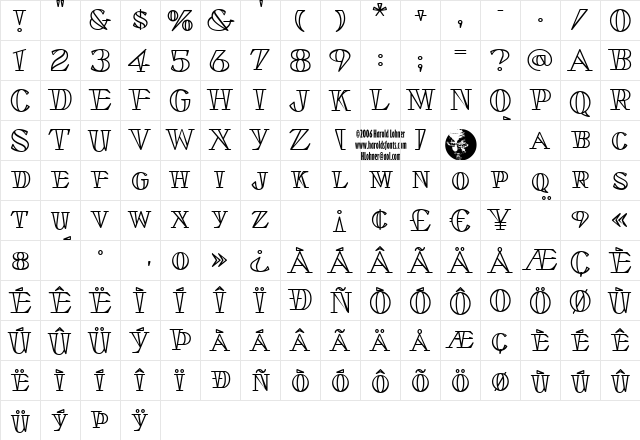
Stella Dallas Outline Regular
Design Context for Stella Dallas Outline Typeface
Stella Dallas Outline is built around its visual character rather than neutral utility — its distinctive forms are designed to make an impression at display sizes.
Font Pairing: Pair with a clean neutral sans-serif for body copy to let Stella Dallas Outline's character lead without overwhelming the composition.
Pro Tip: Treat Stella Dallas Outline as the centrepiece of your typographic hierarchy. One strong heading set in a decorative face can carry an entire layout.